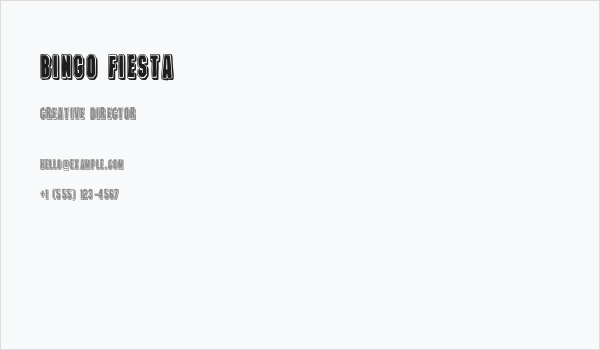
Bingo Fiesta Font
Bingo Fiesta Description
| Overall Style | Decorative, Playful, Festive |
| Use Case | Headlines, Posters, Logos, Event Materials |
| Proposed Projects | Party invitations, posters, event flyers, childrenΓ’β¬β’s materials, signage, branding for fun or festive occasions. |